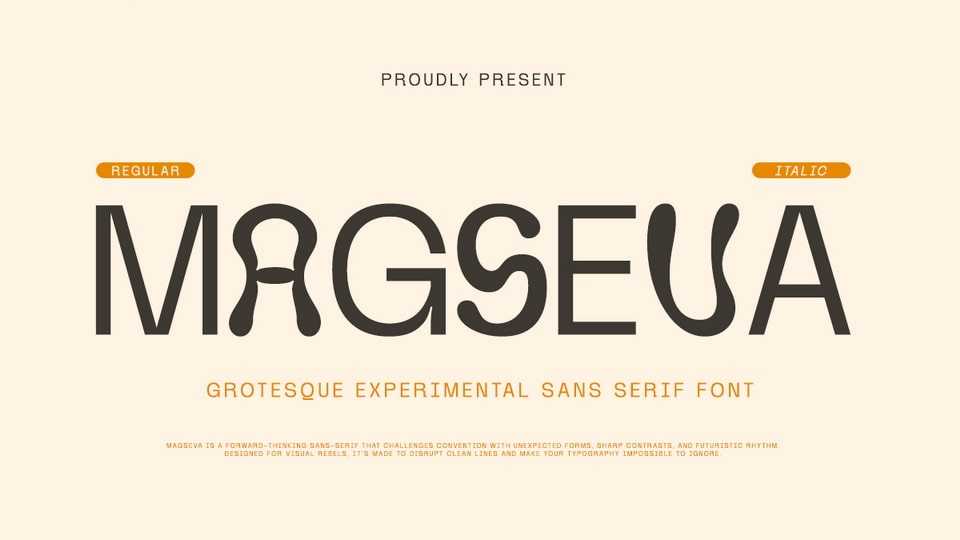
Download Magseva font, an experimental grotesque sans serif typeface. Grotesque sans serif structure combines groovy and unexpected curves, bringing a fresh perspective to modern typography.